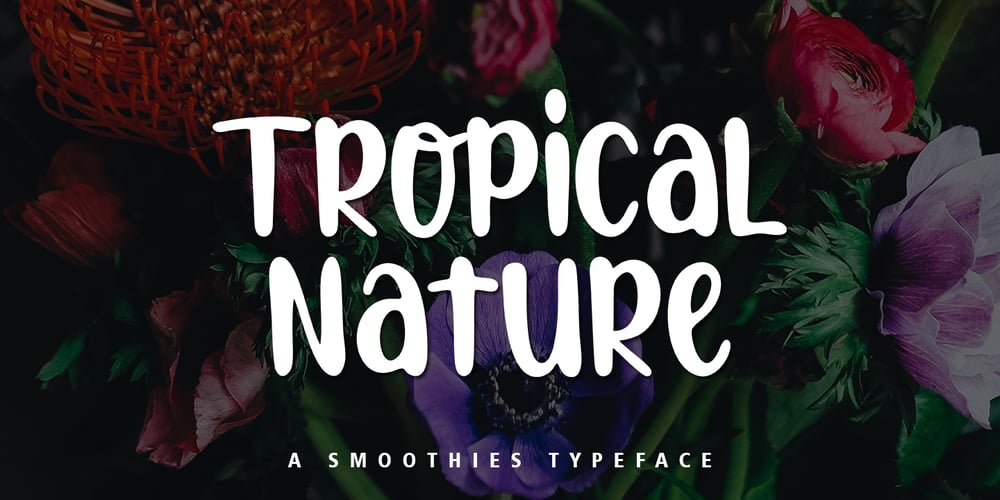
Tropical Nature Font Family was designed by Muhajir and published by Skinny Type. Tropical Nature contains 1 styles and family package options. Tropical Nature is a smoothie handwritten font perfect for your boho and farmhouse designs!This font is perfect for signs, shirts, wedding, home decor, branding, blogs, logos, invitations and more!Thank you!